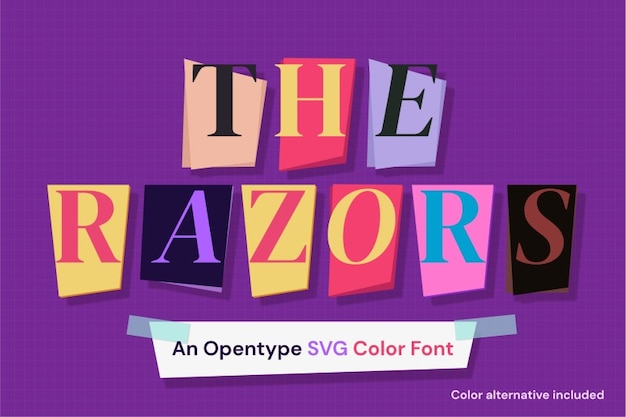
The Razors is a striking font that captures the edgy, cut-out aesthetic of ransom notes and magazine letters. Its sharp, paper-like characters evoke a sense of urgency and intrigue, making it perfect for suspenseful designs, thriller-themed projects, and bold editorial layouts. The Razors adds a dramatic, attention-grabbing touch to any visual, standing out with its dynamic, raw style.